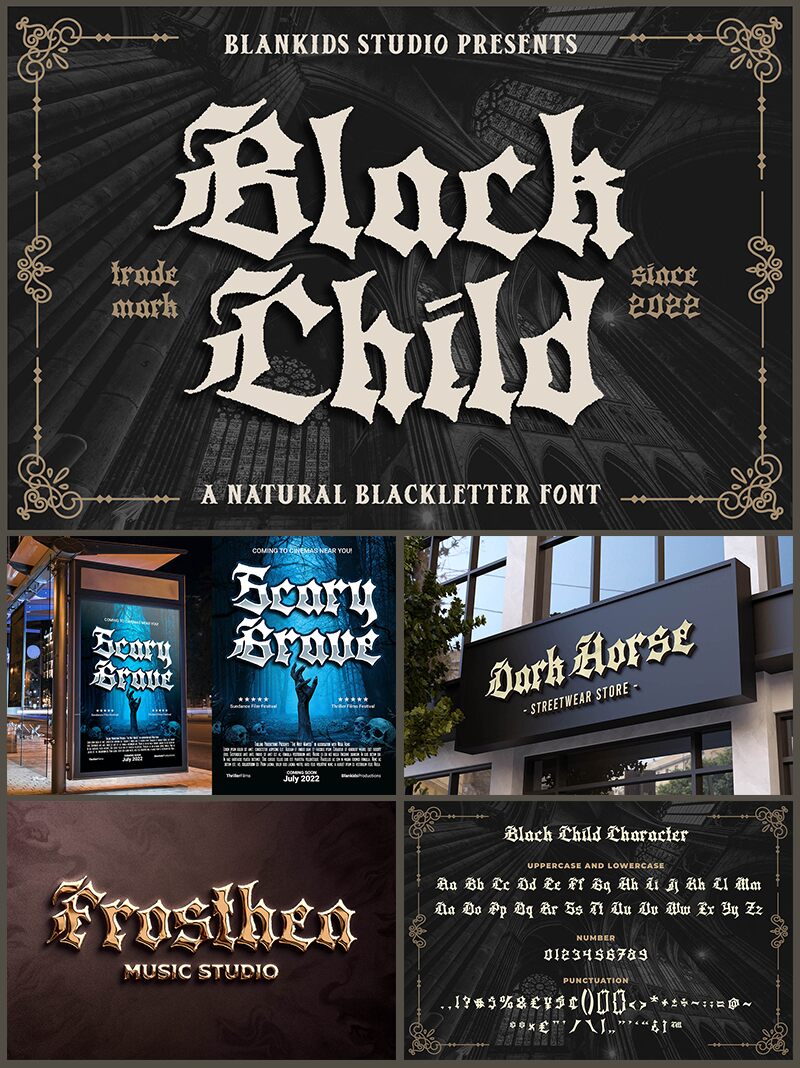
Black Child
Black Child font by Blankids blends gothic charm with modern boldness, offering an ornate and intricate design that stands out. Its decorative and historic essence gives it a striking appearance, making it suitable for projects where visual impact is needed. This free gothic font captures the elegance of age-old scripts with a contemporary twist.
Perfect for magazine covers, posters, apparel design, packaging, tattoos, branding materials, album covers, social media graphics, editorial layouts and more. Use Black Child to make your designs prominently memorable while maintaining clarity within short to medium-length copywriting elements.
Black Child by Blankids Studio